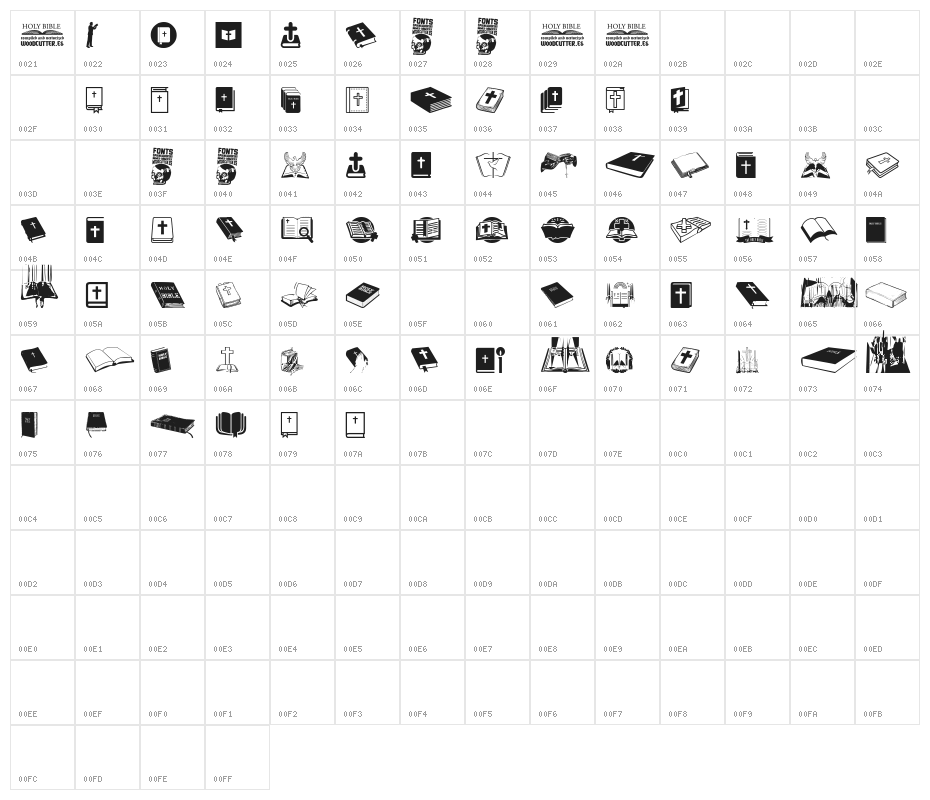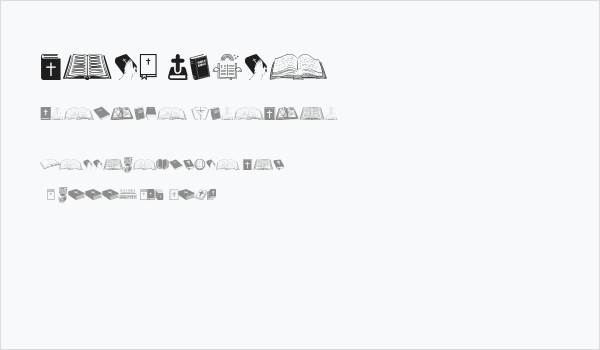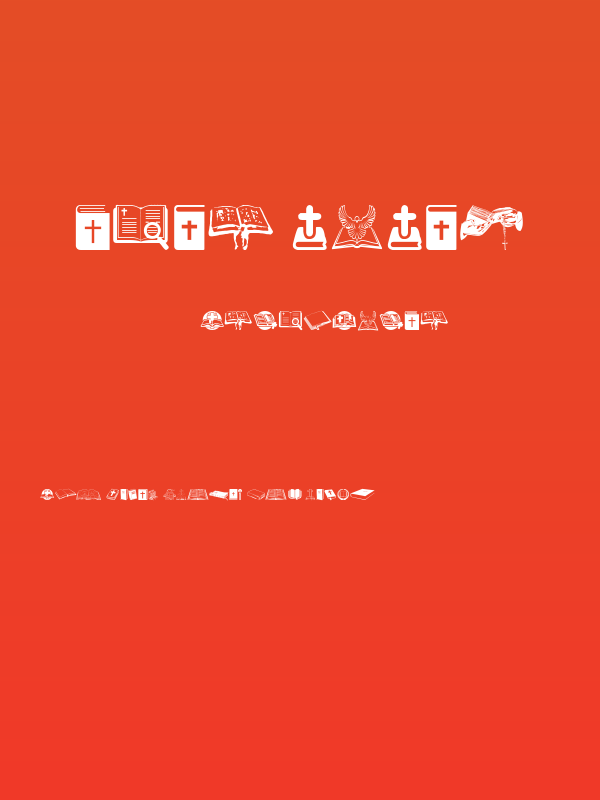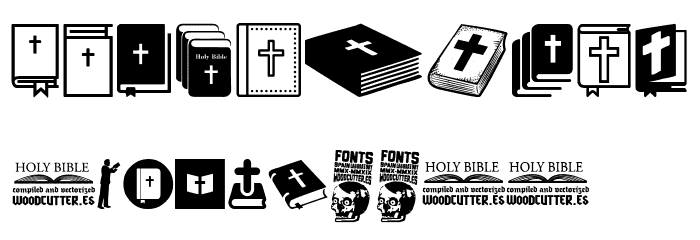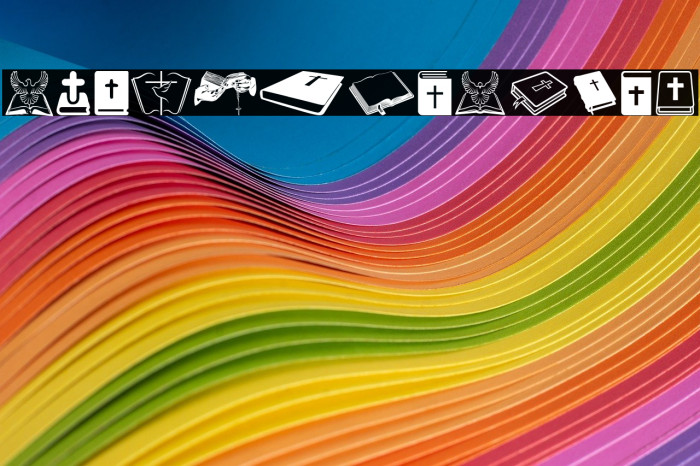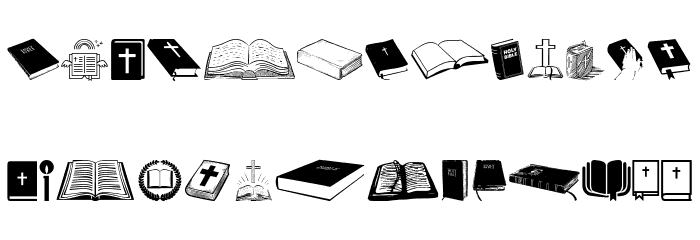
Holy Bible Font
Holy Bible Description
A decorative dingbat font featuring various black and white illustrations of Bibles, crosses, religious symbols, and related Christian imagery. The glyphs are pictorial rather than alphabetic, with each character representing a unique icon or symbol associated with the Holy Bible or Christian faith.
| Overall Style | Decorative, Religious, Thematic |
| Use Case | Icons, Decorative elements, Thematic dividers, Religious branding |
| Proposed Projects | Church bulletins, religious event flyers, Sunday school materials, Christian websites, decorative borders, and faith-based graphic design projects. |